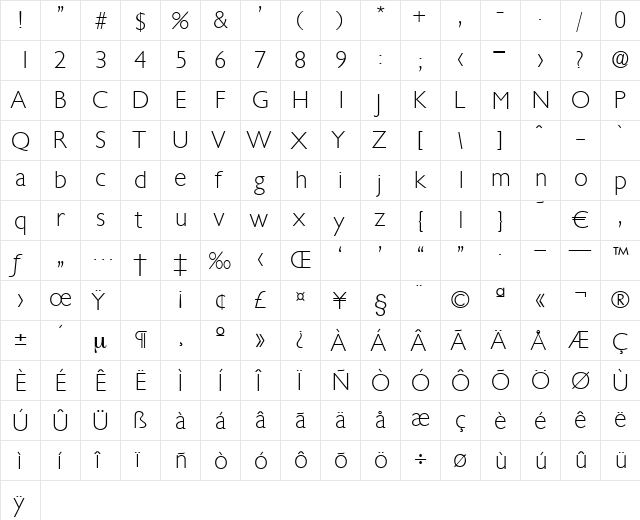
Chantilly-Xlight Regular
Design Context for Chantilly-Xlight Typeface
Chantilly-Xlight offers clean, dependable letterforms without strong stylistic allegiance, making it a practical choice for designers who need flexibility. The delicate stroke weight brings airiness and refinement to layouts.
Pro Tip: Pair Chantilly-Xlight with a font of contrasting weight or personality to build a more expressive typographic hierarchy.